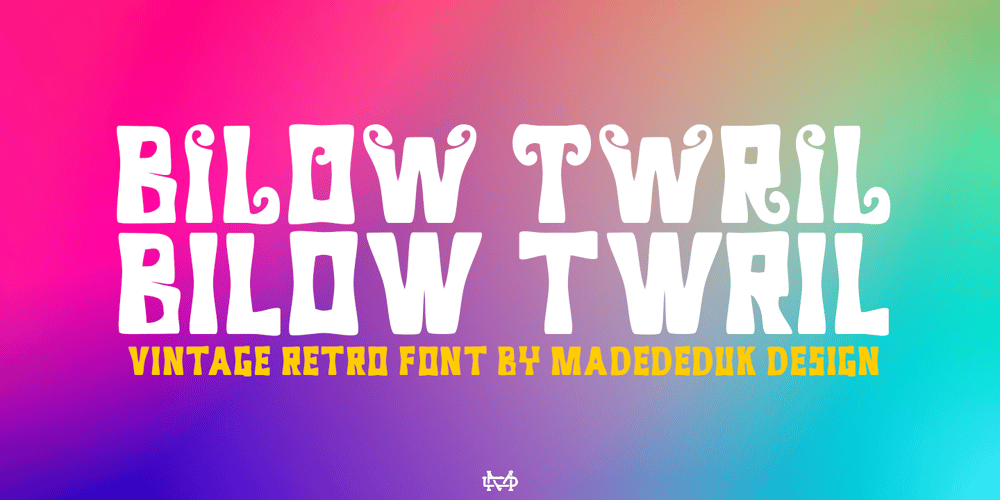
Billow Twril Font Family was designed by madededuk and published by madeDeduk. Billow Twril contains 1 styles and family package options. Billow Twril is a retro display font comes with uppercase curly style with much alternative and ligature. This font perfect for poster design, book covers, merchandise, fashion brands, advertising, magazines, album covers, and more.Feature Uppercase & Lowercase Number & Symbol International Glyphs Multilingual support Alternative Ligature Hope you enjoy it.